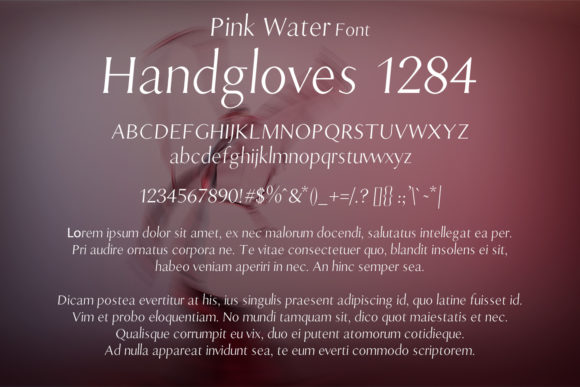
Introduction to Pink Water Font
Pink Water is a stylish and delicate serif font.
It has a clean, thin and smooth vibe and it will be a hit for any design that you want to add it to .
Key Features of Pink Water Font